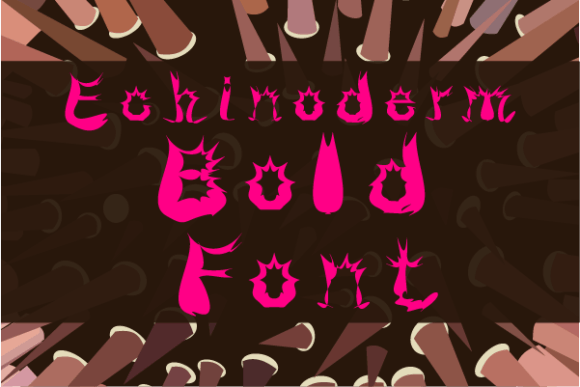
Unleash Your Creativity with Echinoderm Bold Font
Remember that moment when you stumbled upon the perfect font for your craft project? You know, that instant rush of excitement as the design begins to come together in your mind’s eye? For designers and creatives, finding the right font can be a game-changer. It’s the difference between a good project and a great one.
Echinoderm Bold Font is here to elevate your crafty ideas. This fun and quirky display font is perfect for adding a touch of personality to your designs. With its unique style and bold character, Echinoderm Bold Font is a valuable addition to any designer’s toolkit. Whether you’re working on a project that needs a bit of whimsy or a dash of sophistication, this font is sure to deliver.
Echinoderm Bold Font Key Features
- Font Family: Echinoderm Bold, a unique and distinctive font designed to evoke the characteristics of echinoderms
Echinoderm Bold Font Review
I recently had the chance to work with the Echinoderm Bold Font, and I must say it’s a unique addition to any design project. ✨ One of the things that stands out about this font is its versatility. It works well for both digital and print projects, making it a great choice for designers who need a font that can adapt to different mediums.
- ✨ Unique design: Echinoderm Bold has a distinctive, hand-drawn feel that sets it apart from more common fonts.
- ✨ Wide range of applications: As I mentioned earlier, this font works well for both digital and print projects, making it a great choice for designers who need a versatile font.
- ✨ Good legibility: Despite its bold design, Echinoderm is still easy to read, even at smaller font sizes.
However, there are a few limitations to consider. ⚠️ For one, the font may not be the best choice for projects that require a more traditional or formal look. Additionally, the font’s unique design may not be to everyone’s taste, and some designers may find it too bold or overpowering.
Overall, I think the Echinoderm Bold Font is a great choice for designers who are looking for a unique and versatile font that can add some visual interest to their projects. With its distinctive design and wide range of applications, it’s definitely worth considering for your next design project.
Tips: Use Echinoderm Bold Font to add a touch of sophistication to headings and titles. Experiment with different font sizes to create visual hierarchy.
Tips: Use Echinoderm Bold Font to add a bold and modern touch to your designs. Experiment with layer styles and effects to enhance the font’s impact.
Tips: Use Echinoderm Bold Font to add a professional touch to your presentations and documents. Experiment with font combinations to create visual interest.
Echinoderm Bold Font is perfect for:
Headings and titles
Brand logos and icons
Business cards and letterheads
Infographics and data visualizations
What is the recommended font size for using Echinoderm Bold?
The recommended font size for Echinoderm Bold is between 12pt and 24pt. This will ensure that the font is legible and visually appealing. However, feel free to experiment with different font sizes to achieve the desired look and feel for your design project.